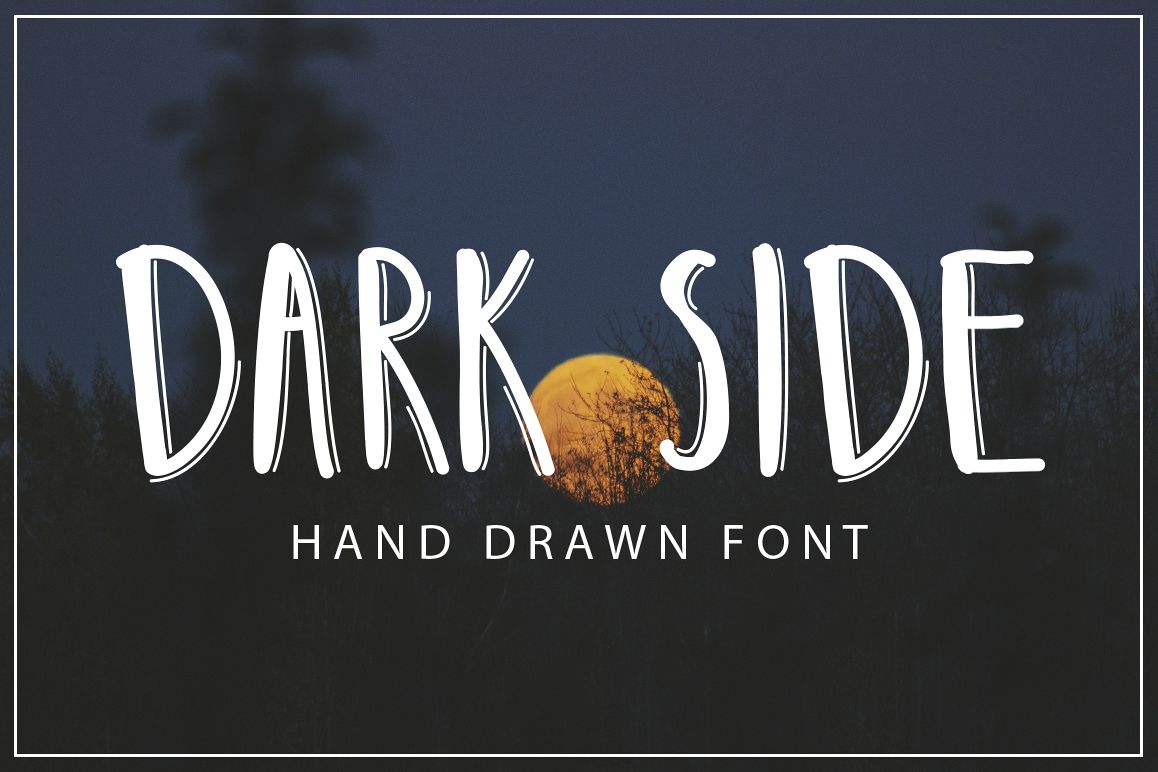
DARK SIDE - hand drawn font
Darkside-Medium
Meet my new cool hand drawn TrueType font with shadows - SUMMER WINE! This hand drawn font contains capital, lowercase letters, numbers and most characters from your keyboard. It's perfect for modern products design, logo, t-shirt prints, postcards and so on.